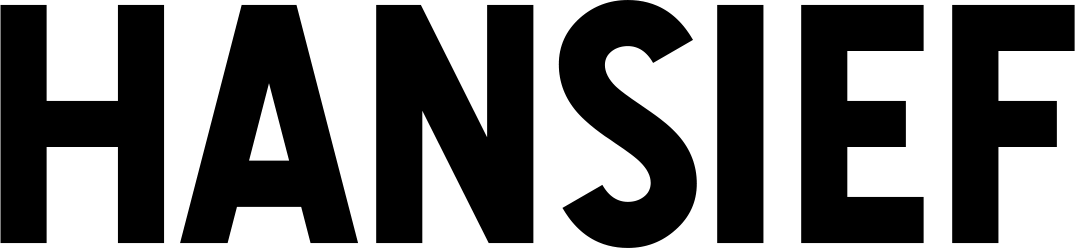
Hansief Font
If you are interested in a casual and friendly kind context then we can suggest a rustic font. From that category, we suggest Hansief which you can use for plenty of projects like texts, websites, magazines, signages, and packaging.
This typeface comes in two different styles that you can choose whichever you like. Apart from the lowercase, you get uppercase of the alphabet, the numbers, and the punctuation marks.
Hansief is sans serif typeface in modern-vintage shape. The font comes in 2 styles which is Regular and Rough.